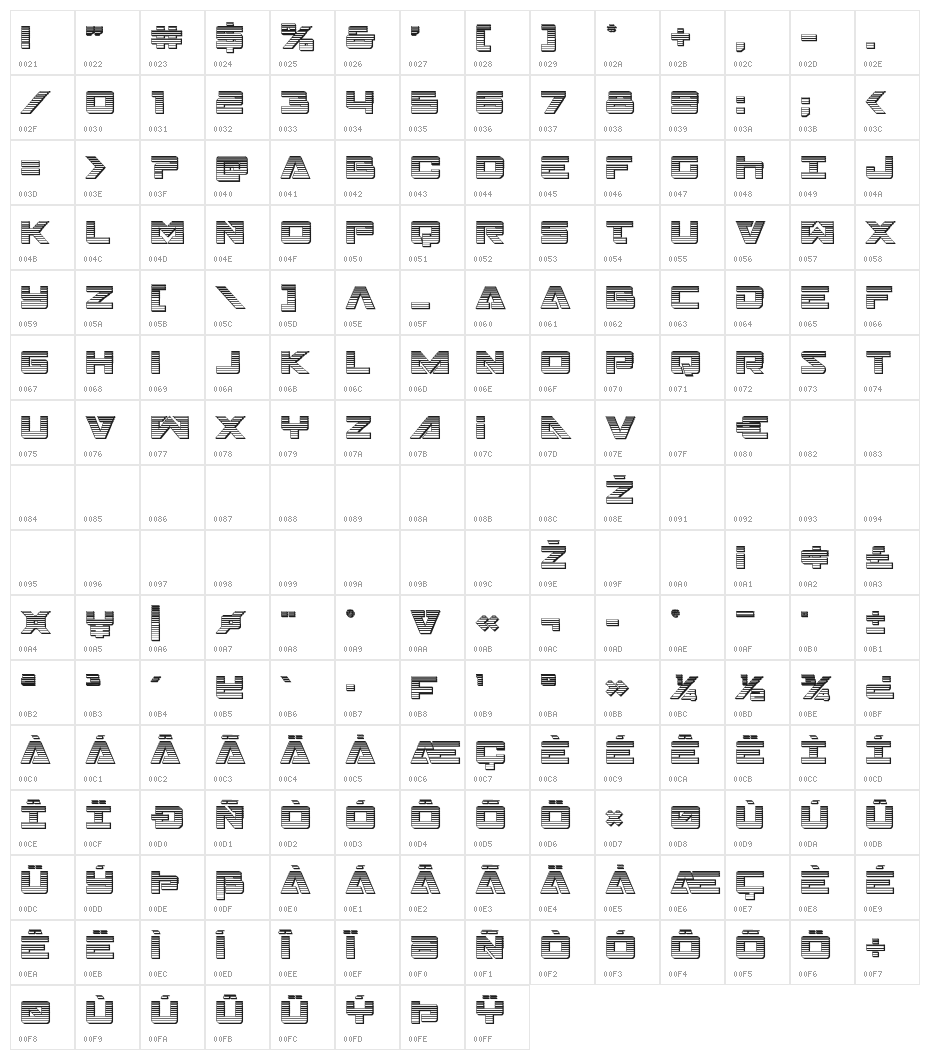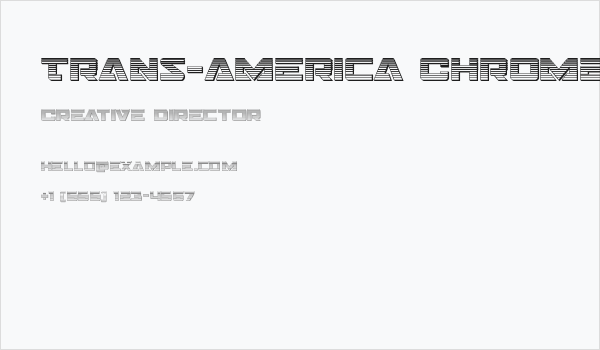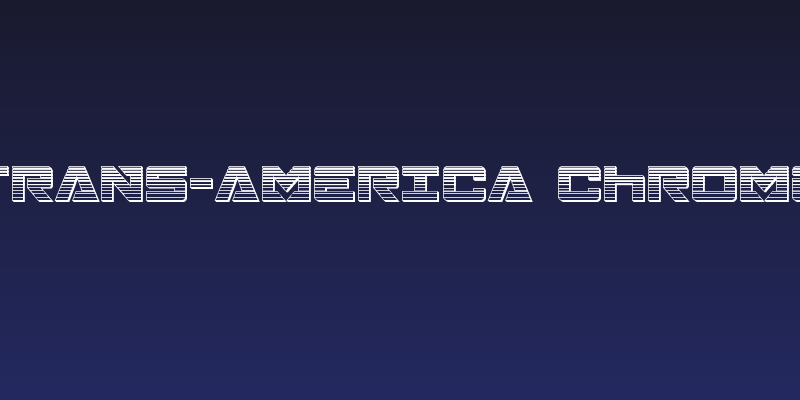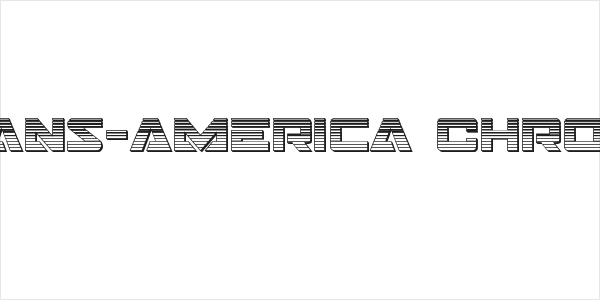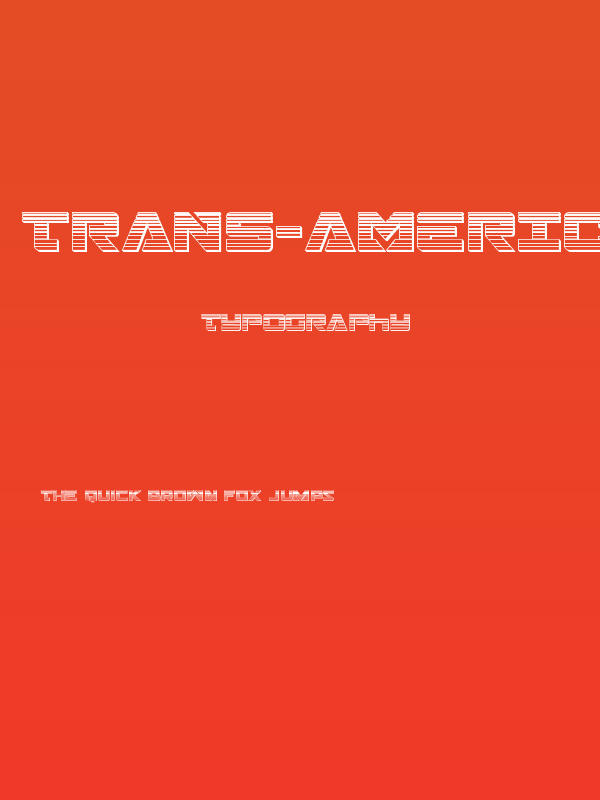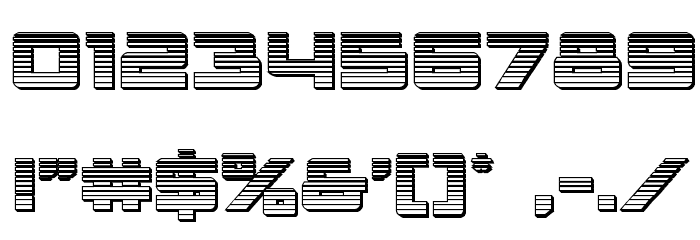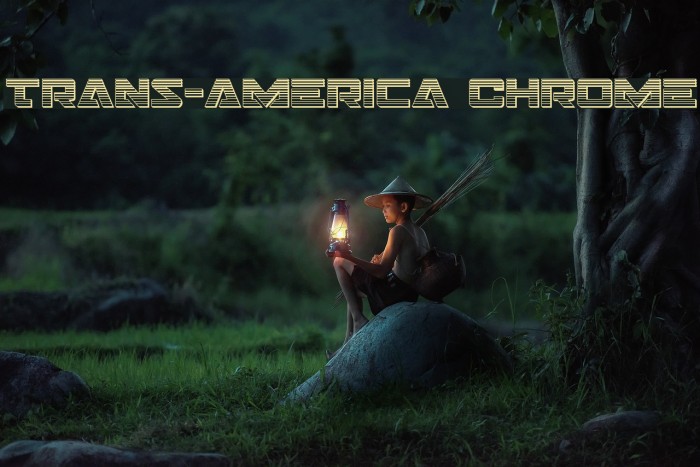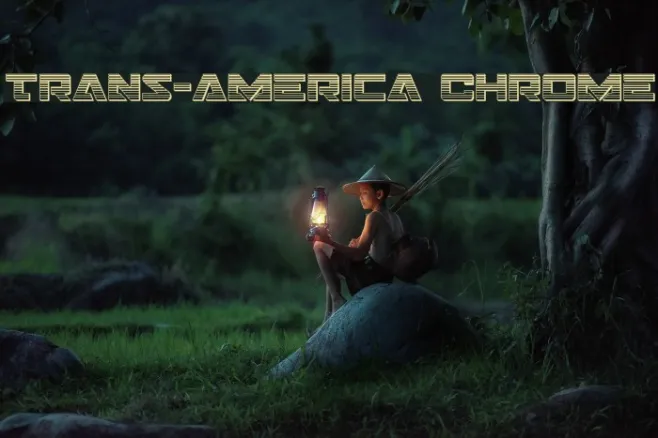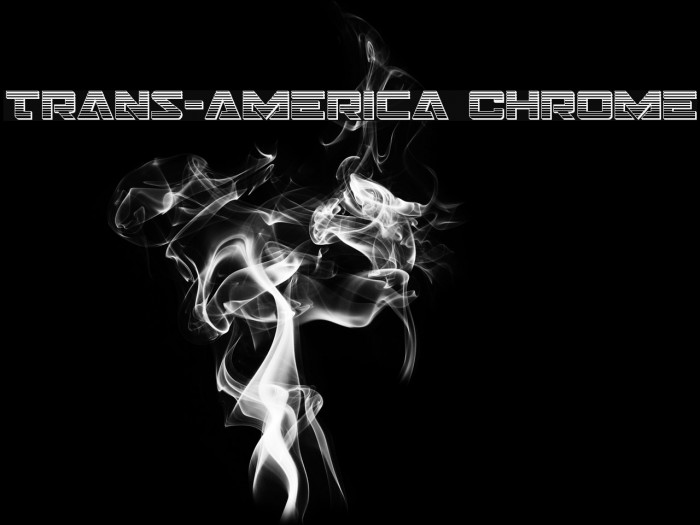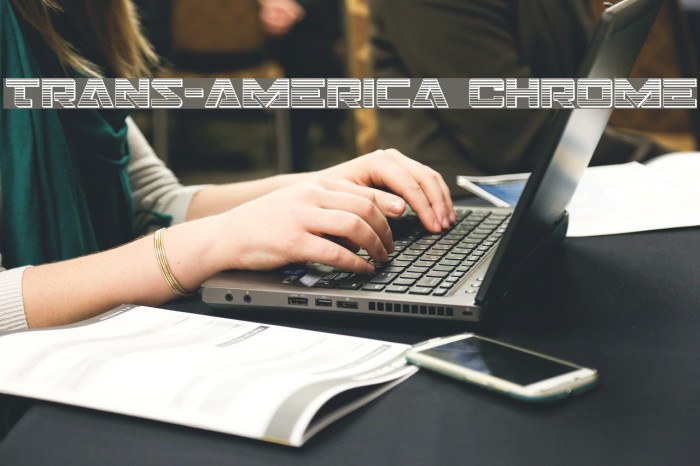
Trans-America Chrome Font
Trans-America Chrome Description
This font features a bold, futuristic design with a distinct three-dimensional effect created by parallel lines. Each character is constructed with a series of horizontal stripes that give it a layered, chrome-like appearance. The geometric structure of the letters is consistent, with sharp angles and clean lines that convey a sense of modernity and technological advancement. The font's unique style makes it stand out, with a strong visual impact that is both eye-catching and memorable. The uppercase and lowercase letters maintain a uniform design, while the numerals and special characters are crafted to match the overall aesthetic, ensuring a cohesive look across all text elements.
| Proposed Projects | Ideal for technology branding, sci-fi movie posters, video game titles, and futuristic-themed designs. |